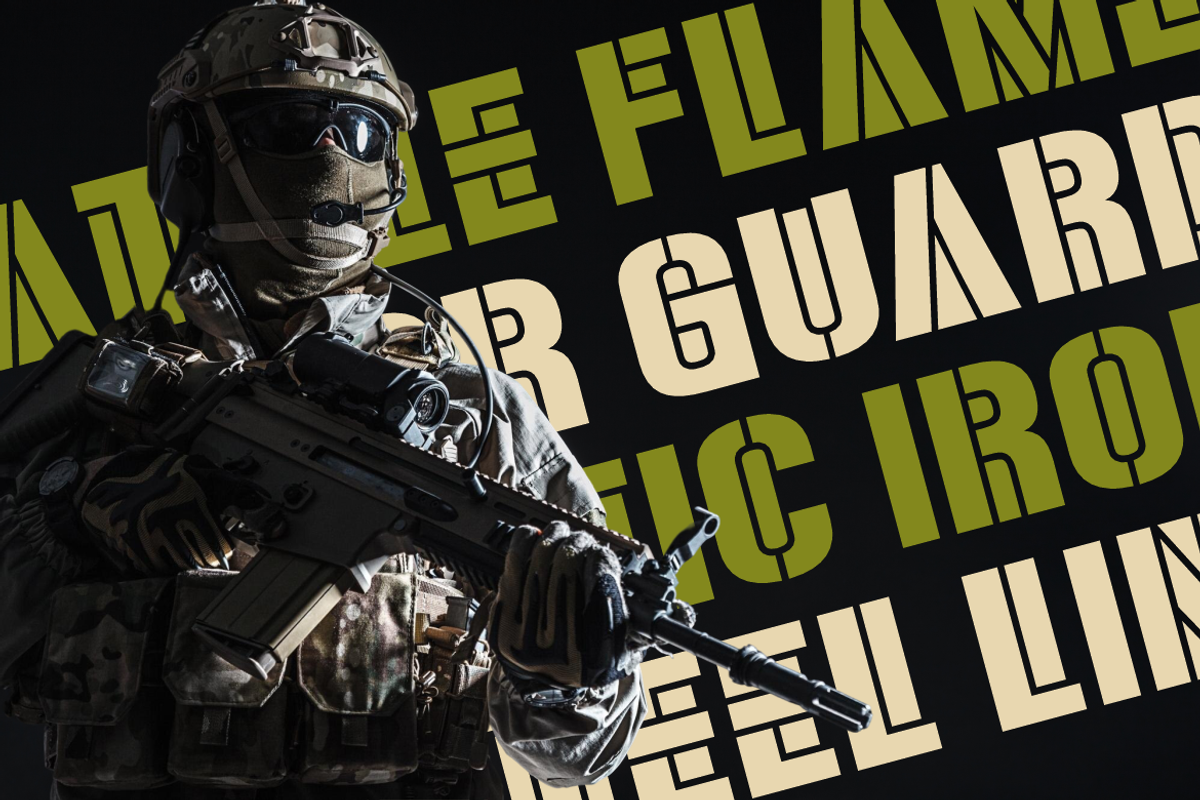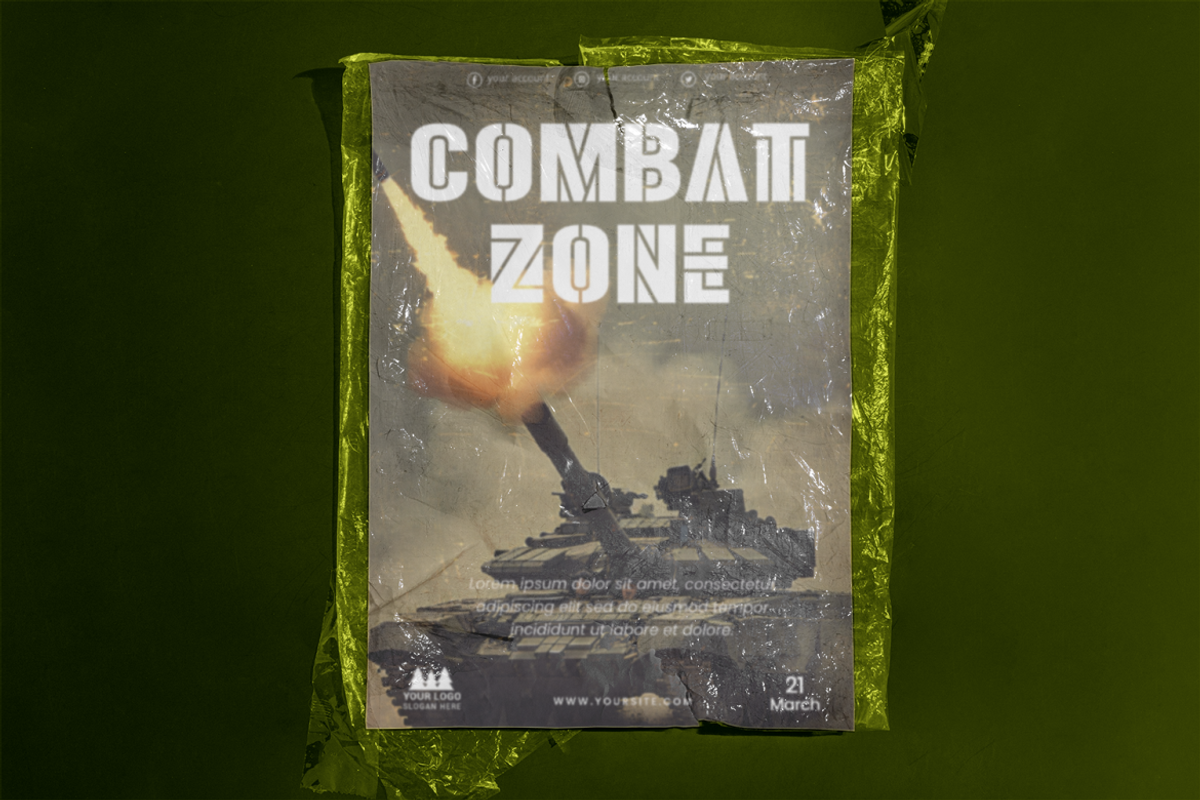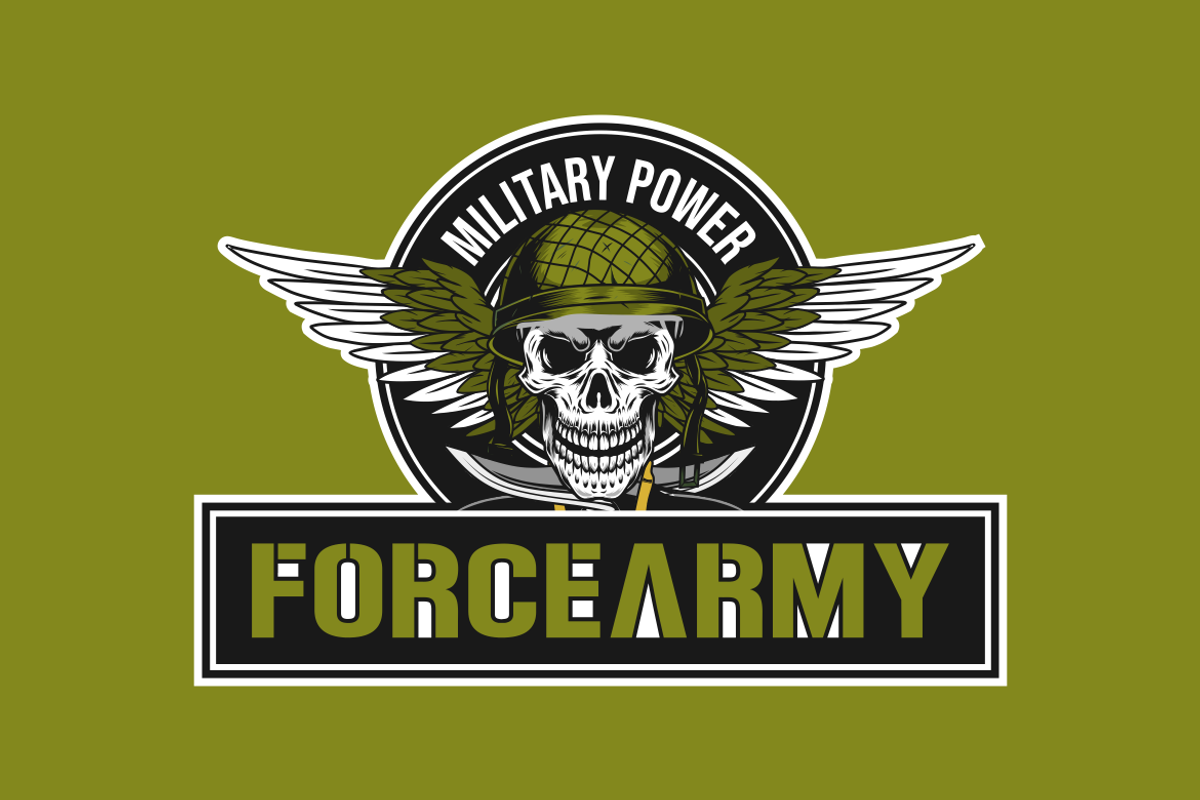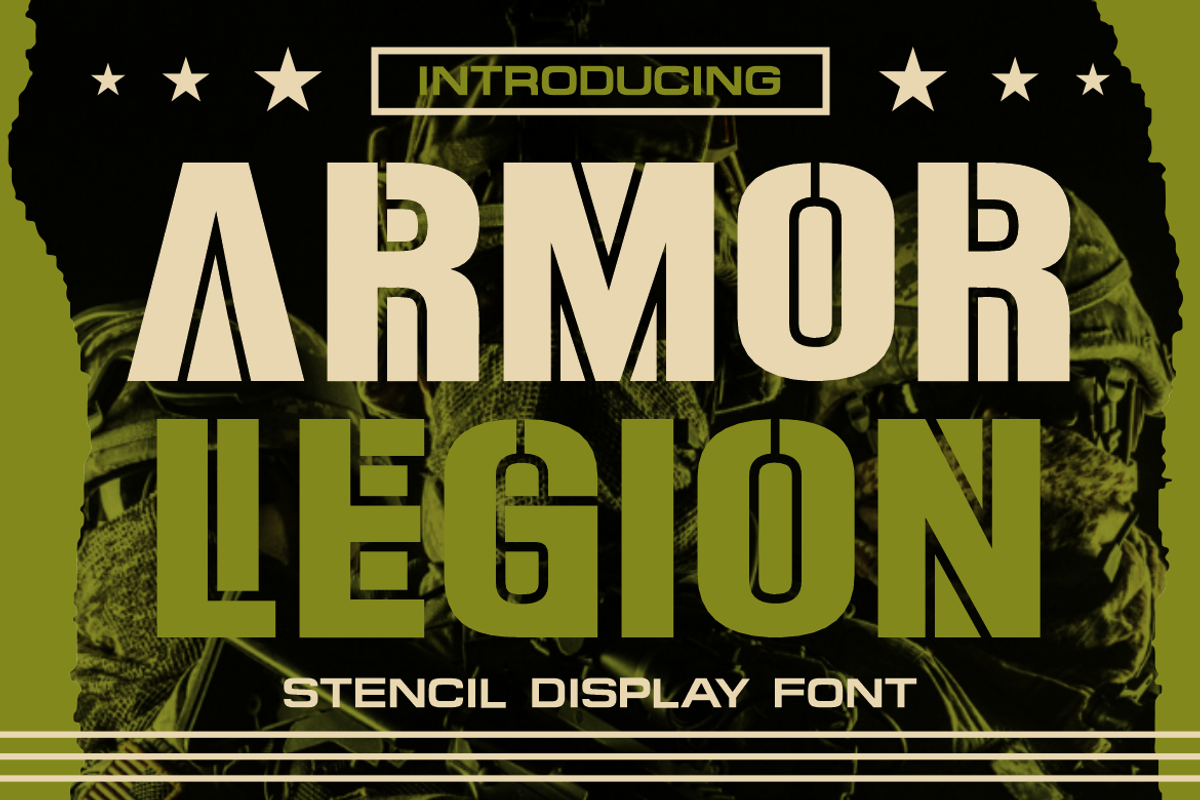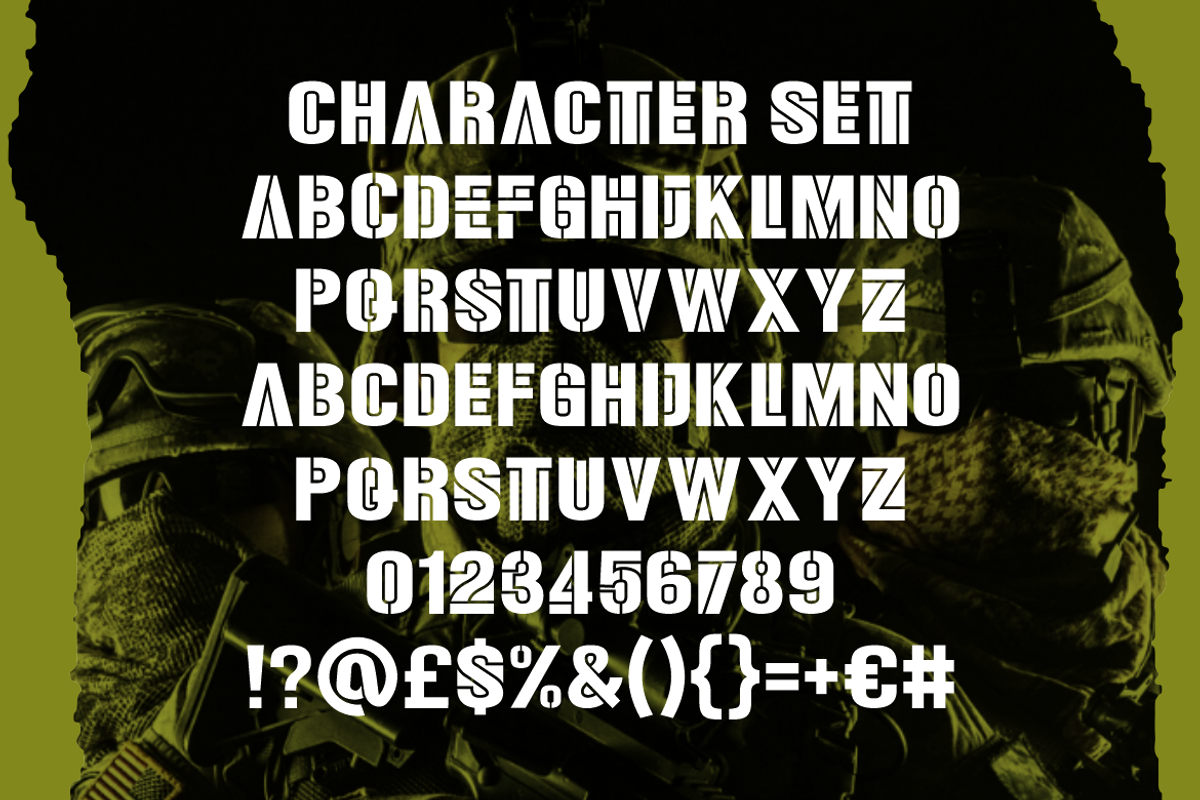
Armor Legion Display Font
Armor Legion Display Font is a bold, combat-ready typeface designed to channel the strength, precision, and discipline of military design. Its defining stencil structure features geometric cuts that create a tactical and strategic look, reminiscent of army-grade labeling on gear, equipment, and armored vehicles. Each letterform is purposefully crafted with strong vertical and diagonal strokes, combined with robust spacing, to ensure high visibility and clarity at any scale. The font pairs classic stencil aesthetics with a modern edge, making it ideal for high-impact visual communication.
Perfect for branding, posters, apparel, and gaming titles, Armor Legion brings rugged elegance to the forefront. Whether it's used in military documentaries, tactical gear packaging, film titles, or video game interfaces, the font commands attention with its bold construction and sharp details. The uppercase-focused character set enhances its assertiveness, while alternate cuts and industrial forms add flexibility across creative applications. Take your message to the battlefield with a font forged for fearless design.